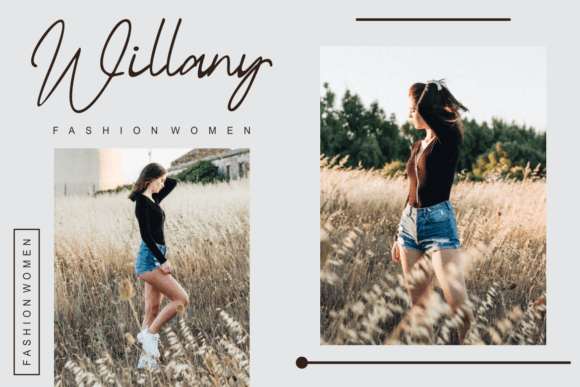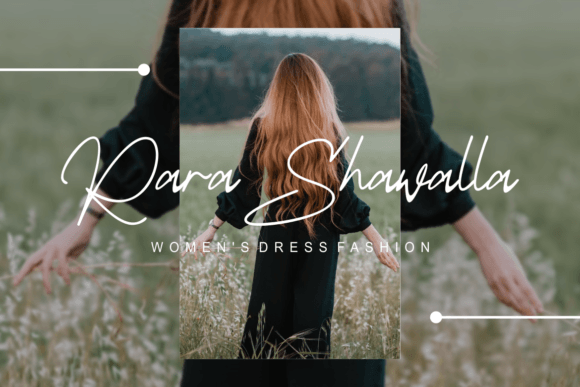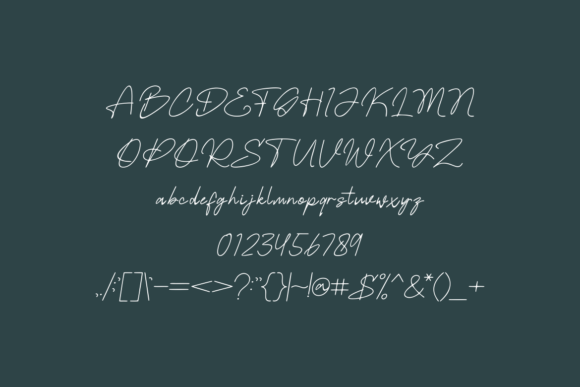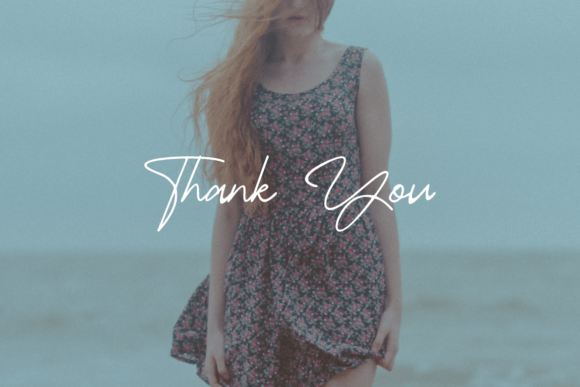
Battika Font: Elevate Your Designs with a Touch of Elegance
In the world of typography, fonts play a crucial role in conveying the tone and personality of a brand. For designers and crafters, finding the perfect font that combines style, elegance, and versatility can be a daunting task. However, if you’re looking for a modern handwritten font that exudes an authentic and elegant touch, look no further than Battika Font. In this article, we’ll explore the features, benefits, and uses of Battika Font, and why it’s an excellent choice for your next branding project.
What is Battika Font?
Battika Font is a modern handwritten font designed to bring a touch of sophistication and elegance to your designs. With its fluid strokes and authentic feel, this font is perfect for creating stunning visual content that stands out from the crowd. Whether you’re working on a logo, t-shirt printing, esports, or any other branding project, Battika Font is an excellent choice.
Key Features of Battika Font
- Modern Handwritten Style: Battika Font boasts a modern handwritten style that is both elegant and authentic.
- Versatile: This font is suitable for a wide range of contexts, including logos, t-shirt printing, esports, and more.
- Easy to Read: The clean and fluid strokes of Battika Font make it easy to read, even at smaller font sizes.
- Highly Customizable: With Battika Font, you can experiment with different colors, sizes, and styles to create a unique look that suits your brand.
Benefits of Using Battika Font
So, why choose Battika Font for your next project? Here are some benefits of using this amazing font:
- Elegance and Sophistication: Battika Font adds a touch of elegance and sophistication to your designs, making them perfect for high-end brands.
- Uniqueness: With its modern handwritten style, Battika Font helps your brand stand out from the competition.
- Flexibility: This font is suitable for a wide range of contexts, making it a versatile addition to your font library.
- Time-Saving: With Battika Font, you can create stunning visual content quickly and easily, saving you time and effort.
Use Cases for Battika Font
Battika Font is an incredibly versatile font that can be used in a variety of contexts. Here are some use cases to get you started:
- Logo Design: Create a stunning logo that showcases your brand’s personality with Battika Font.
- T-Shirt Printing: Design eye-catching t-shirts with Battika Font that’s sure to turn heads.
- Esports: Use Battika Font to create professional-looking esports branding, including team logos, jerseys, and more.
- Social Media Graphics: Create engaging social media graphics, including Facebook posts, Instagram stories, and more.
In conclusion, Battika Font is an excellent choice for designers and crafters looking for a modern handwritten font with an authentic and elegant touch. With its versatility, ease of use, and stunning visual appeal, this font is perfect for a wide range of branding projects. Whether you’re working on a logo, t-shirt printing, esports, or social media graphics, Battika Font is sure to elevate your designs to the next level.